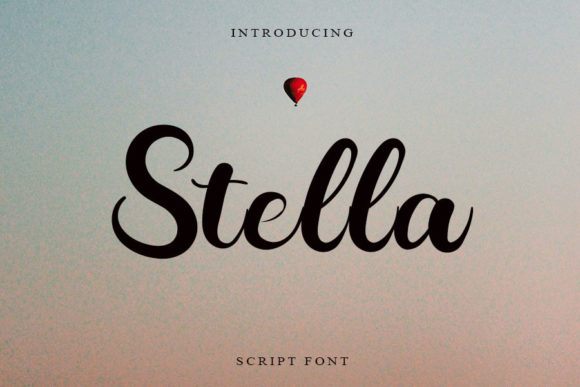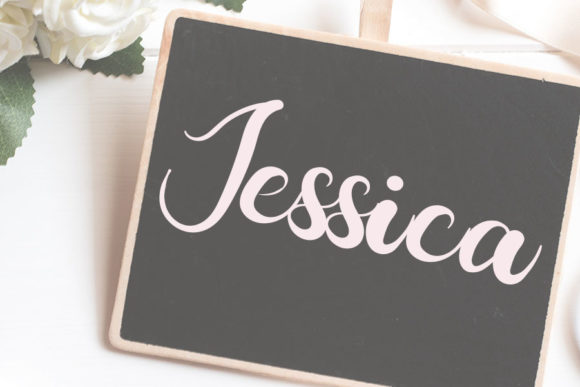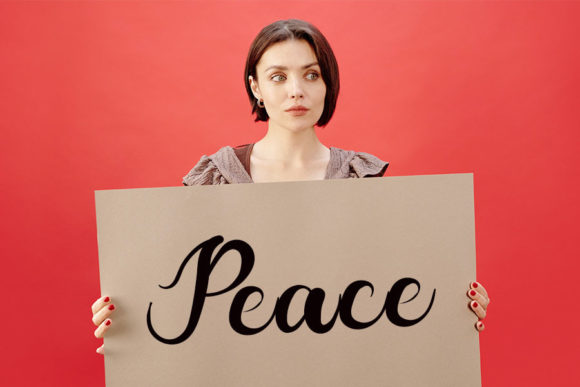
About Stella Font
Stella is a stunning script font that exudes delicacy, elegance, and grace. Its meticulously crafted letterforms showcase a harmonious balance between fluidity and legibility, making it a versatile choice for a wide range of design projects.
In branding, Stella can bring a touch of sophistication and charm. Its flowing curves and intricate details create a sense of luxury that resonates with audiences. Whether it’s used in logos, packaging, or promotional materials, Stella adds a level of refinement that elevates the brand’s visual identity.
For wedding invitations and event stationery, Stella’s elegant script lends an air of romance and timeless beauty. Its graceful strokes and balanced characters create a captivating and enchanting atmosphere, setting the perfect tone for special occasions. From save-the-date cards to place cards and beyond, Stella adds a touch of elegance that leaves a lasting impression.
In typography-driven designs such as quotes, posters, and social media graphics, Stella shines as a focal point. Its intricate yet legible style draws the eye and adds a sense of artistry to textual content. Whether conveying inspirational messages or showcasing artistic expressions, Stella’s flowing script adds a touch of visual interest that captures attention.
Stella’s versatility extends to various other creative projects, including book covers, packaging, fashion designs, and more. Its delicate and well-balanced characters make it adaptable to different themes and aesthetics, allowing designers to explore a range of possibilities.
Overall, Stella is a font that truly comes to life when incorporated into creative ideas. Its elegance, flowing design, and versatility enable it to enhance a variety of visual concepts. By adding Stella to your design toolkit, you can infuse your projects with a sense of refinement, beauty, and timeless appeal.